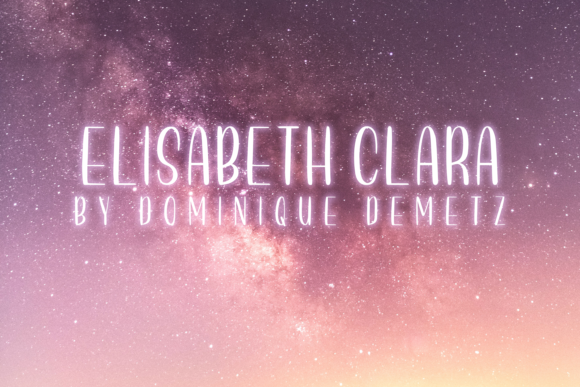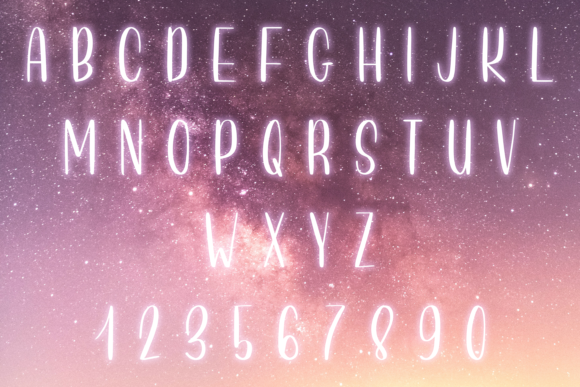
Elisabeth Clara Font
About Elisabeth Clara Font
Elisabeth Clara is a lovely and light handwritten font with a sophisticated feel. It will turn any design project into a stand out!